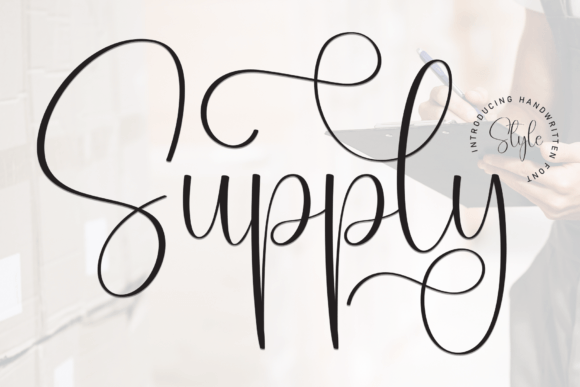
Welcome to the exquisite world of Supply Font, a script typeface that exudes elegance and charm. Dive into a world of captivating characters, each meticulously crafted to ignite your creativity and transport your designs to new heights. Supply Font is not just a collection of letters; it's an artistic masterpiece that breathes life into your words.
Step into the realm of graphic design with Supply Font as your trusted companion. With its graceful curves and impeccable style, Supply Font transforms ordinary text into extraordinary visual artistry. Let your imagination soar as you explore the endless possibilities, creating logos that command attention, business cards that leave a lasting impression, and invitations that set the stage for unforgettable celebrations.
Supply Font is not merely a tool; it's an extension of your creative spirit. Its versatility knows no bounds, adapting seamlessly to a symphony of design styles. Whether you seek a touch of whimsy, a dash of sophistication, or an explosion of personality, Supply Font effortlessly captures the essence of your vision.
Indulge in the beauty of handwritten elegance with Supply Font. Its characters dance across the page, evoking a sense of timeless charm and heartfelt emotions. From wedding invitations that whisper sweet promises to thank-you cards that express genuine gratitude, Supply Font adds a touch of magic to every word, transforming mere messages into cherished keepsakes.
Embrace the power of Supply Font and embark on a creative journey like no other. With its enchanting script, you hold the key to unlocking a world of visual wonders. Unleash your imagination, let your creativity flow, and experience the transformative power of a font that speaks to the heart.